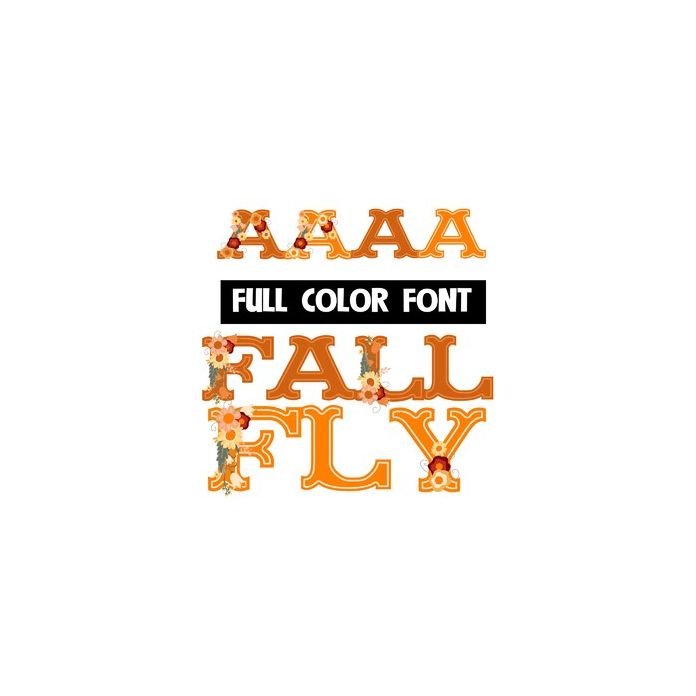
This full-color font features autumn-colored flowers on rusty lettering. There is an alt version of orange lettering you can access through your system or Silhouette's glyph map.